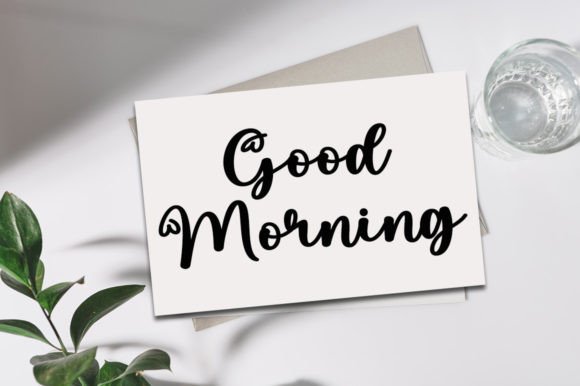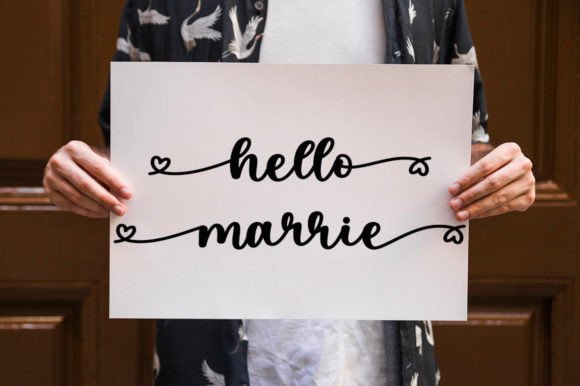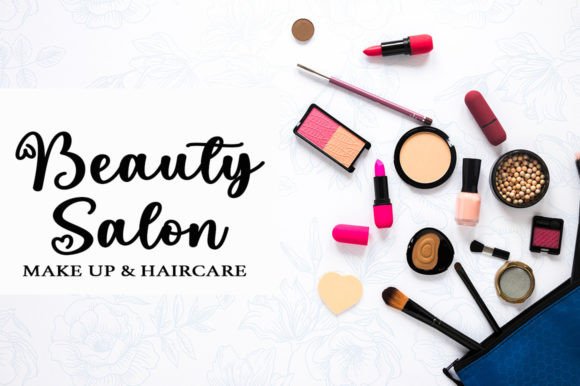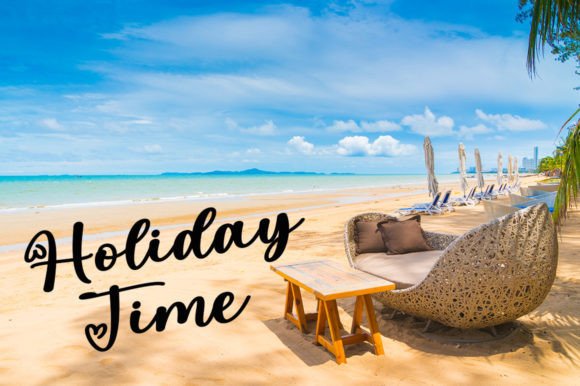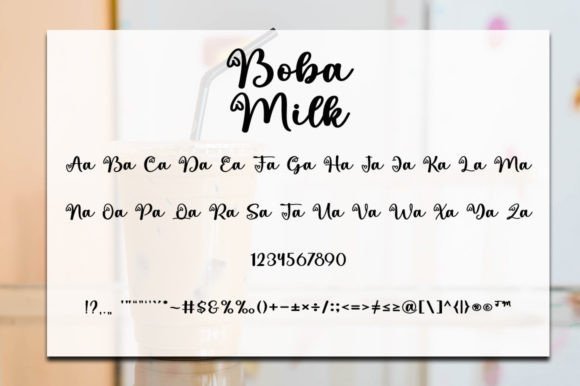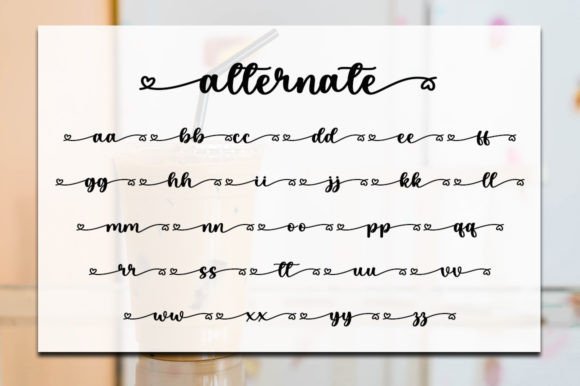
Boba Milk Font: The Perfect Handwritten Touch for Your Designs
Are you looking for a font that adds a touch of elegance and charm to your designs? Look no further than the Boba Milk font. This beautiful handwritten font is perfect for a variety of design projects, from wedding invitations and thank you cards to quotes, greeting cards, logos, and business cards.
Aesthetic Appeal of Boba Milk Font
Boba Milk font feels equally charming and elegant, making it an excellent choice for designers and crafters who want to add a personal touch to their work. The font’s elegant and flowing lines give it a sophisticated look that’s perfect for high-end designs. Whether you’re creating a wedding invitation or a business card, Boba Milk font is sure to make your design stand out.
Versatility of Boba Milk Font
One of the best things about Boba Milk font is its versatility. It can be used for a wide range of design projects, including:
- Wedding invitations and thank you cards
- Quotes and greeting cards
- Logos and business cards
Wherever you need to add a handwritten touch, Boba Milk font is an excellent choice.
Boba Milk font is PUA (Private Use Area) encoded, which means you can access all of the glyphs and swashes with ease. PUA encoding allows you to access special characters and glyphs that are not available in standard fonts. This makes it easy to add flourishes and other decorative elements to your designs.
Why Designers and Crafters Love Boba Milk Font
Designers and crafters love Boba Milk font for several reasons:
- Elegant and charming: Boba Milk font adds a touch of elegance and charm to any design.
- Versatile: The font can be used for a wide range of design projects.
- Easy to use: PUA encoding makes it easy to access all of the glyphs and swashes.
- High-quality: The font is designed to be clear and legible, even at small sizes.
Tips for Using Boba Milk Font
Here are a few tips for using Boba Milk font in your designs:
- Pair it with a simple background: Boba Milk font looks best on a simple background that allows the font to take center stage.
- Experiment with different sizes: The font looks great at a variety of sizes, from large headings to small body text.
- Add flourishes and swashes: Use the PUA encoded glyphs and swashes to add decorative elements to your design.
Boba Milk font is a beautiful and versatile handwritten font that’s perfect for designers and crafters. Its elegant and charming aesthetic makes it an excellent choice for a wide range of design projects. With PUA encoding, you can easily access all of the glyphs and swashes to add a personal touch to your designs. Whether you’re creating wedding invitations, business cards, or social media graphics, Boba Milk font is sure to make your design stand out.